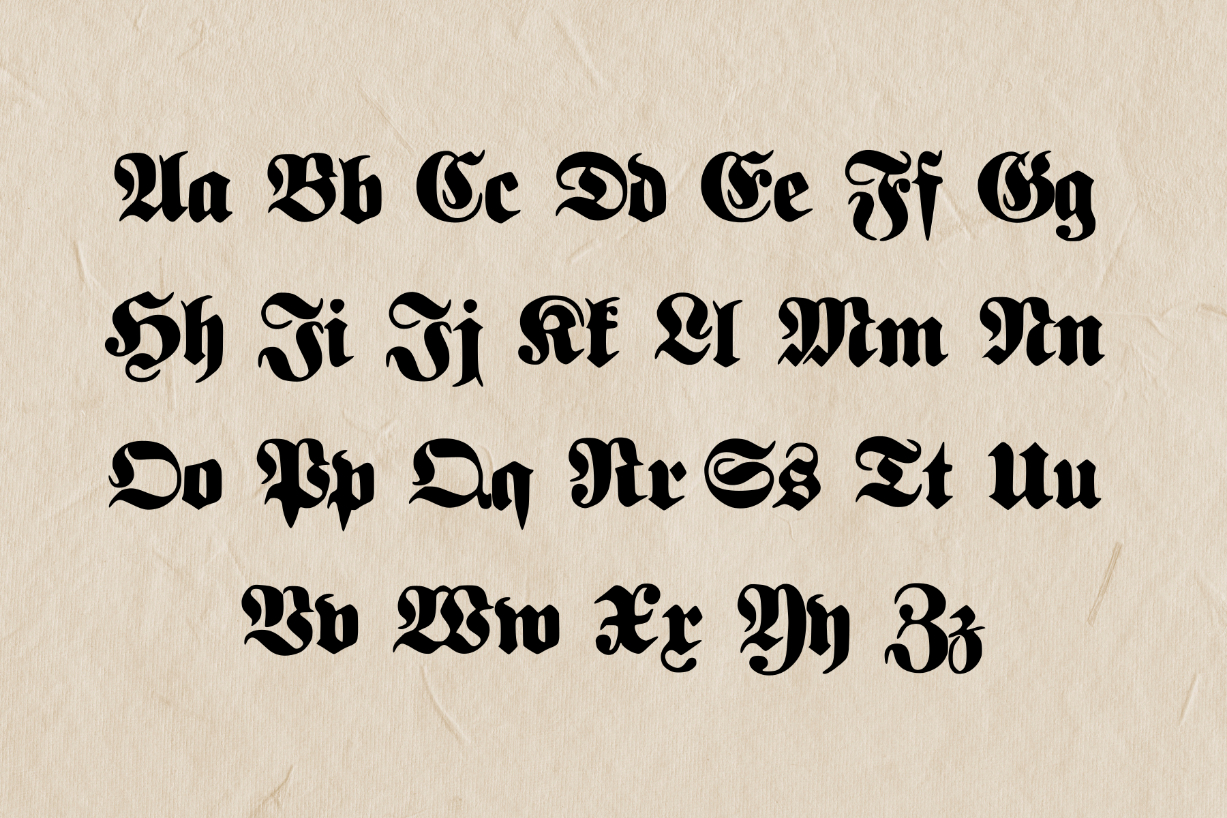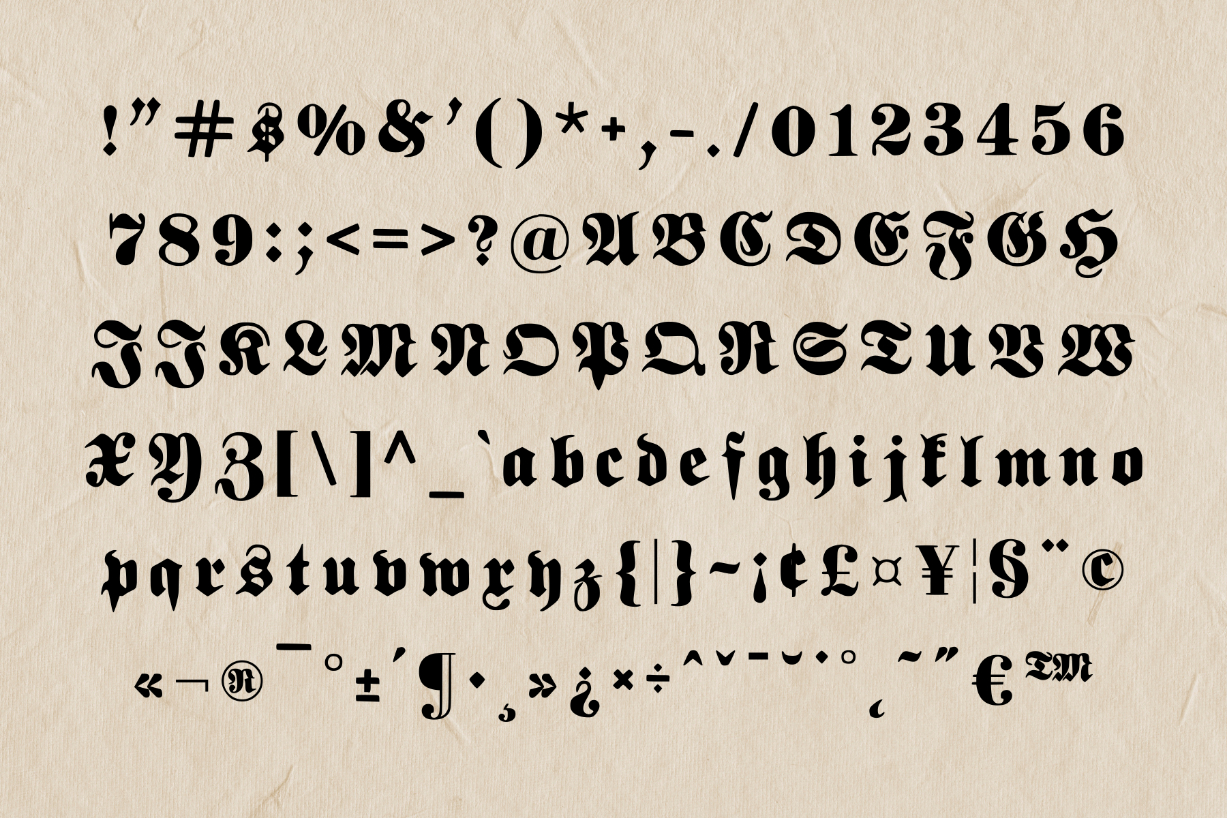
Old German Font
About Old German Font
Old German is a modern, vigorous, and confident font. Its antique style and the unique calligraphy of the characters will bring a firm touch to your project ideas.